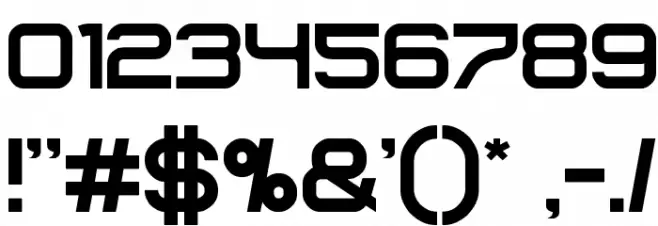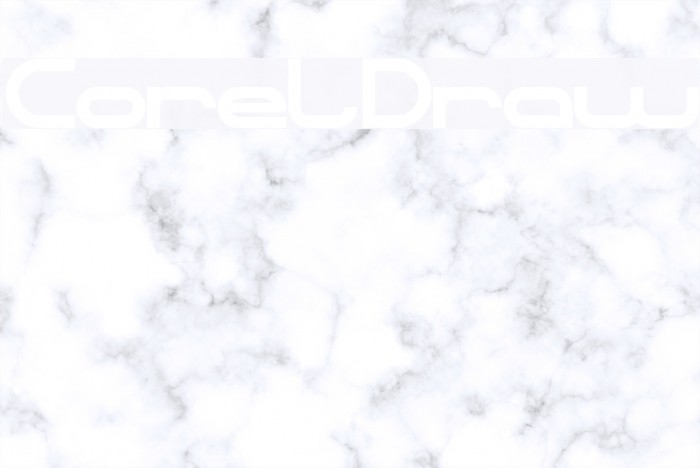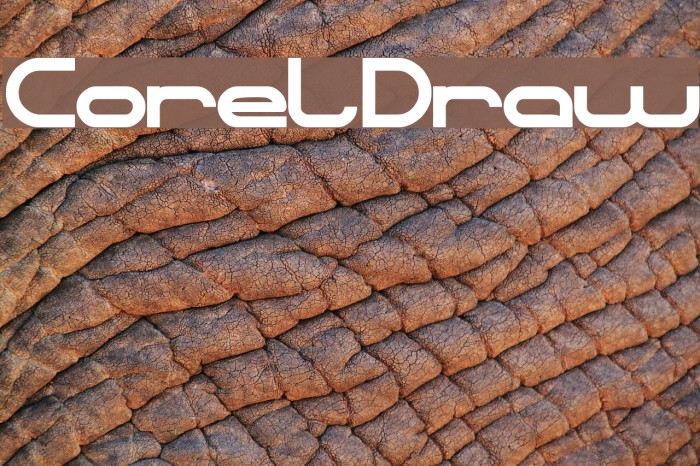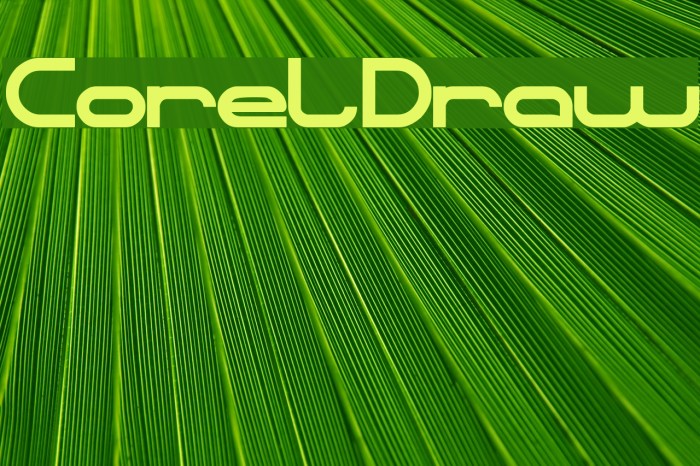
CorelDraw Font
CorelDraw Description
This font features a modern, geometric design with a futuristic appeal. The characters are constructed with clean, straight lines and rounded edges, creating a sleek and contemporary look. The uppercase letters are bold and commanding, while the lowercase letters maintain a consistent style with slightly reduced height. Numbers and special characters follow the same design principles, ensuring uniformity across all glyphs. The font's unique style is characterized by its distinct cutouts and angular forms, making it stand out in any design context. Its overall appearance is both technical and stylish, suitable for projects that require a modern and innovative touch.
| Use Case | Logos, Headlines, Posters |
| Proposed Projects | Ideal for technology branding, sci-fi themed projects, modern advertising, and innovative product packaging. |